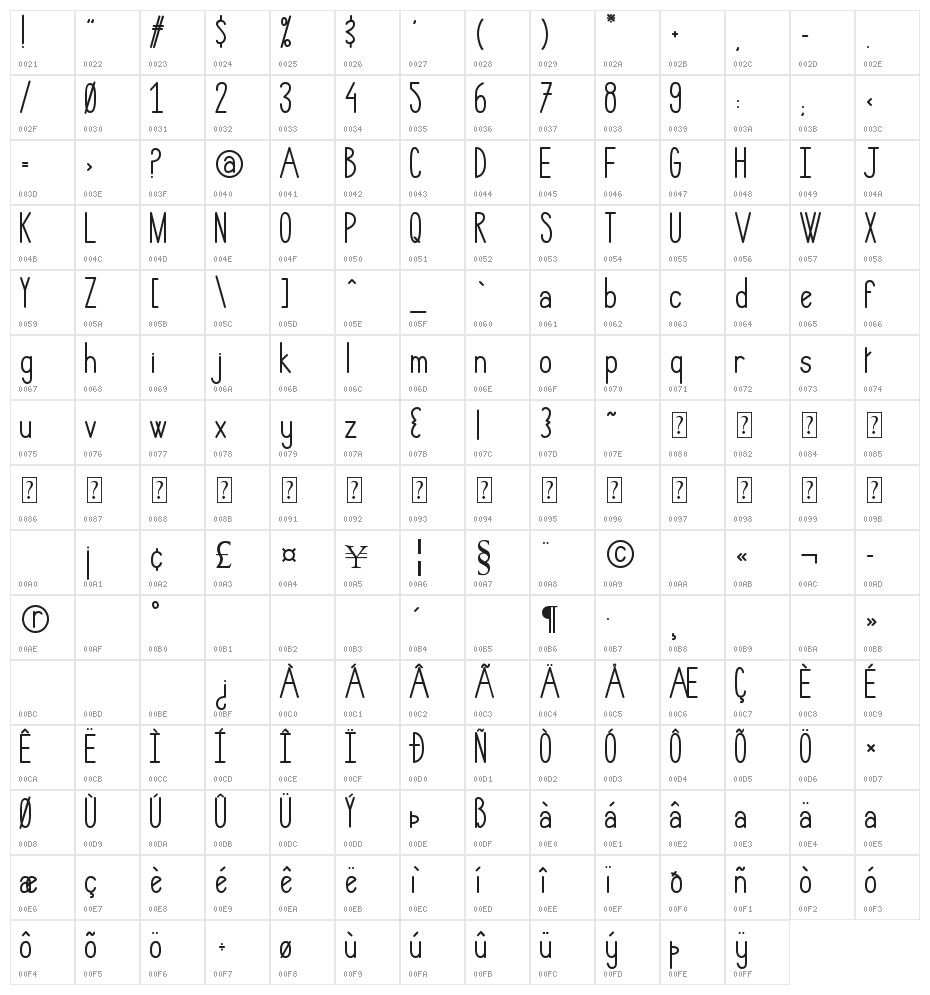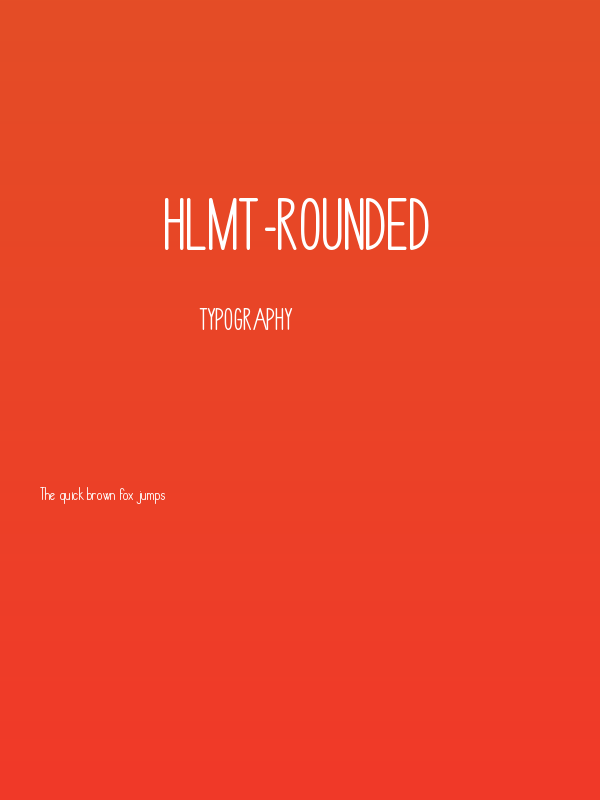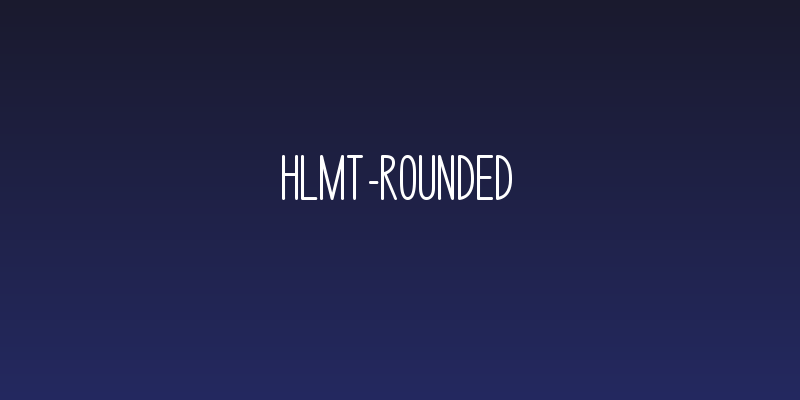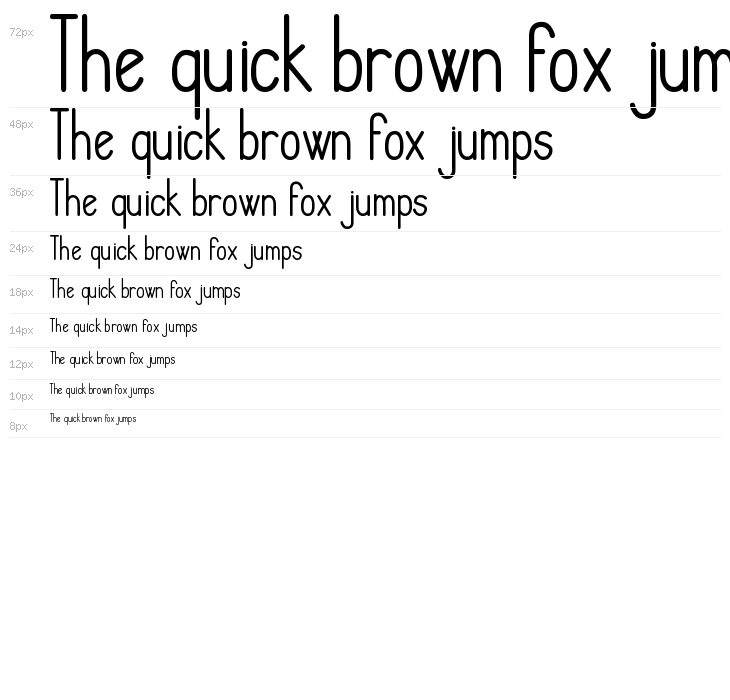
hlmt-rounded Font
| Caso d'uso | Logos, Headlines, Digital Interfaces |
| Progetti proposti | Ideal for branding, signage, packaging, and digital interfaces where a friendly and modern look is desired. |